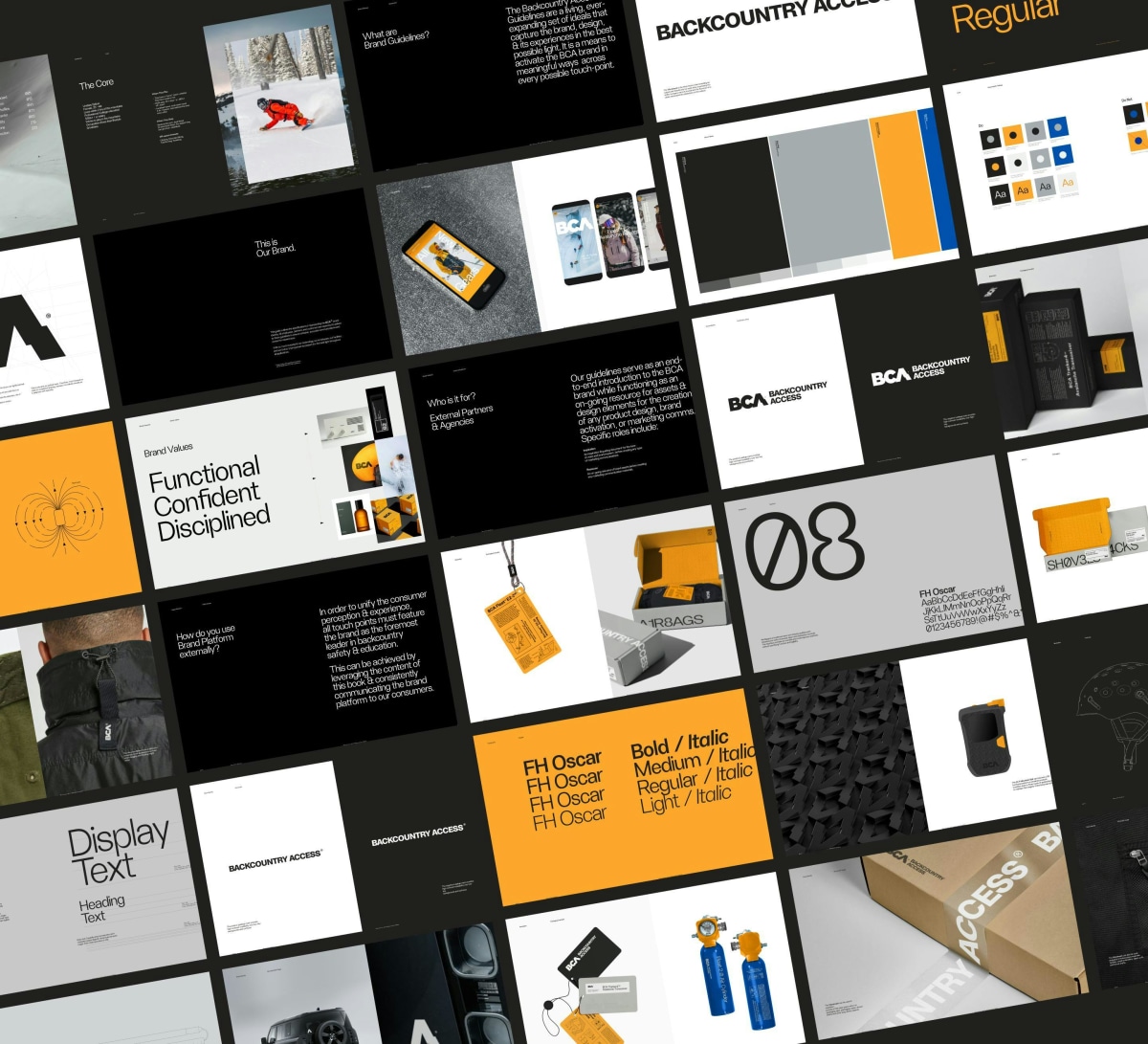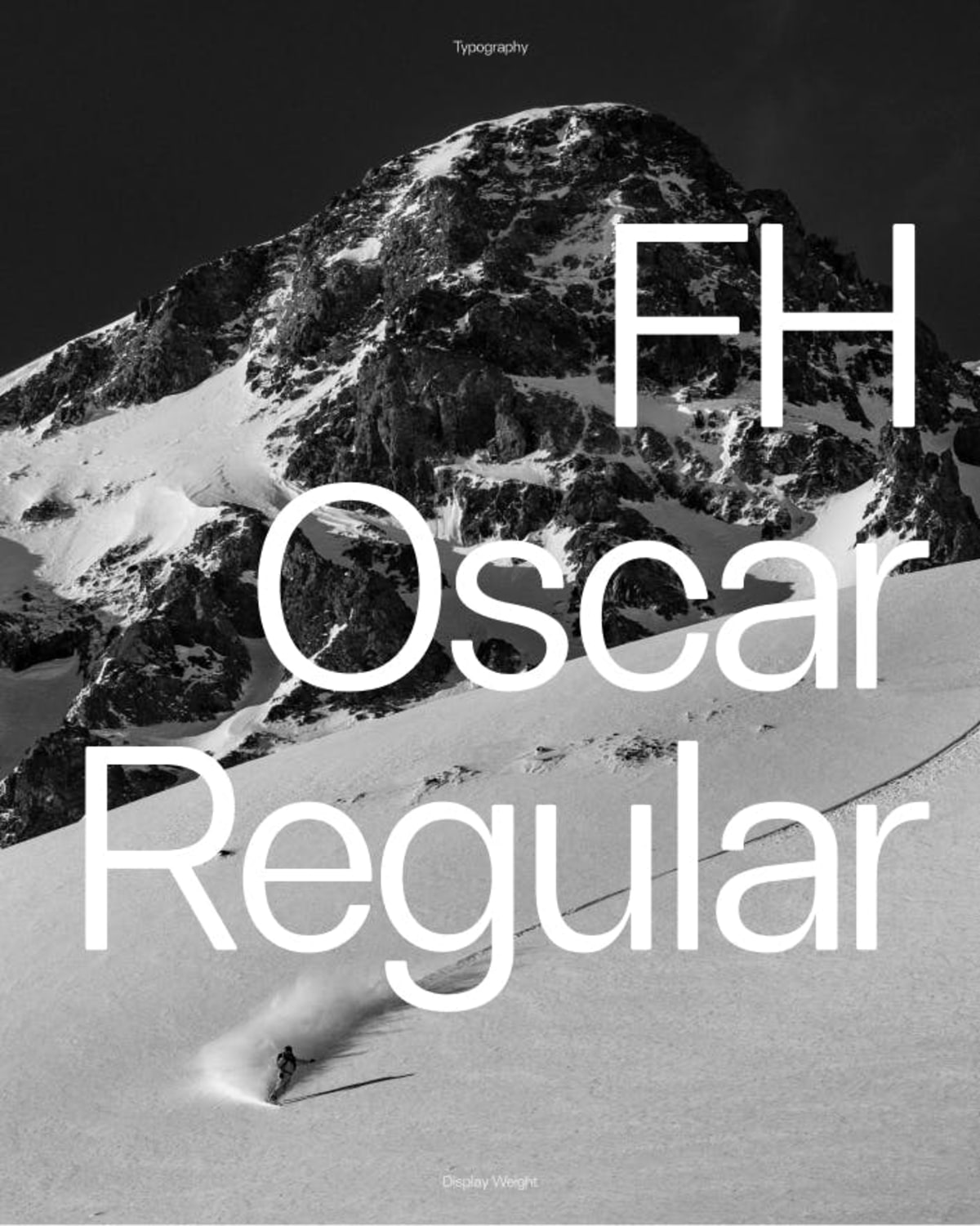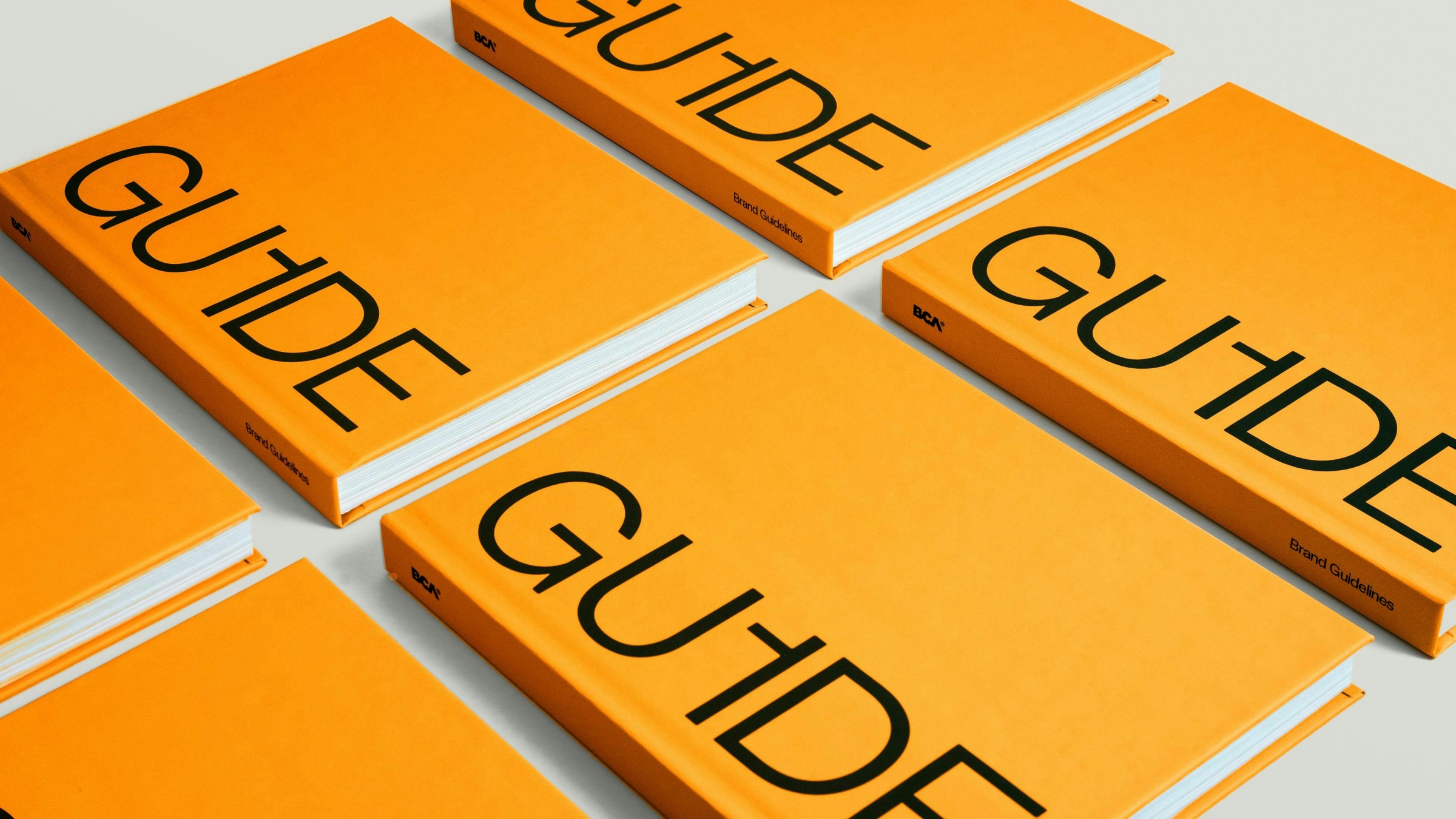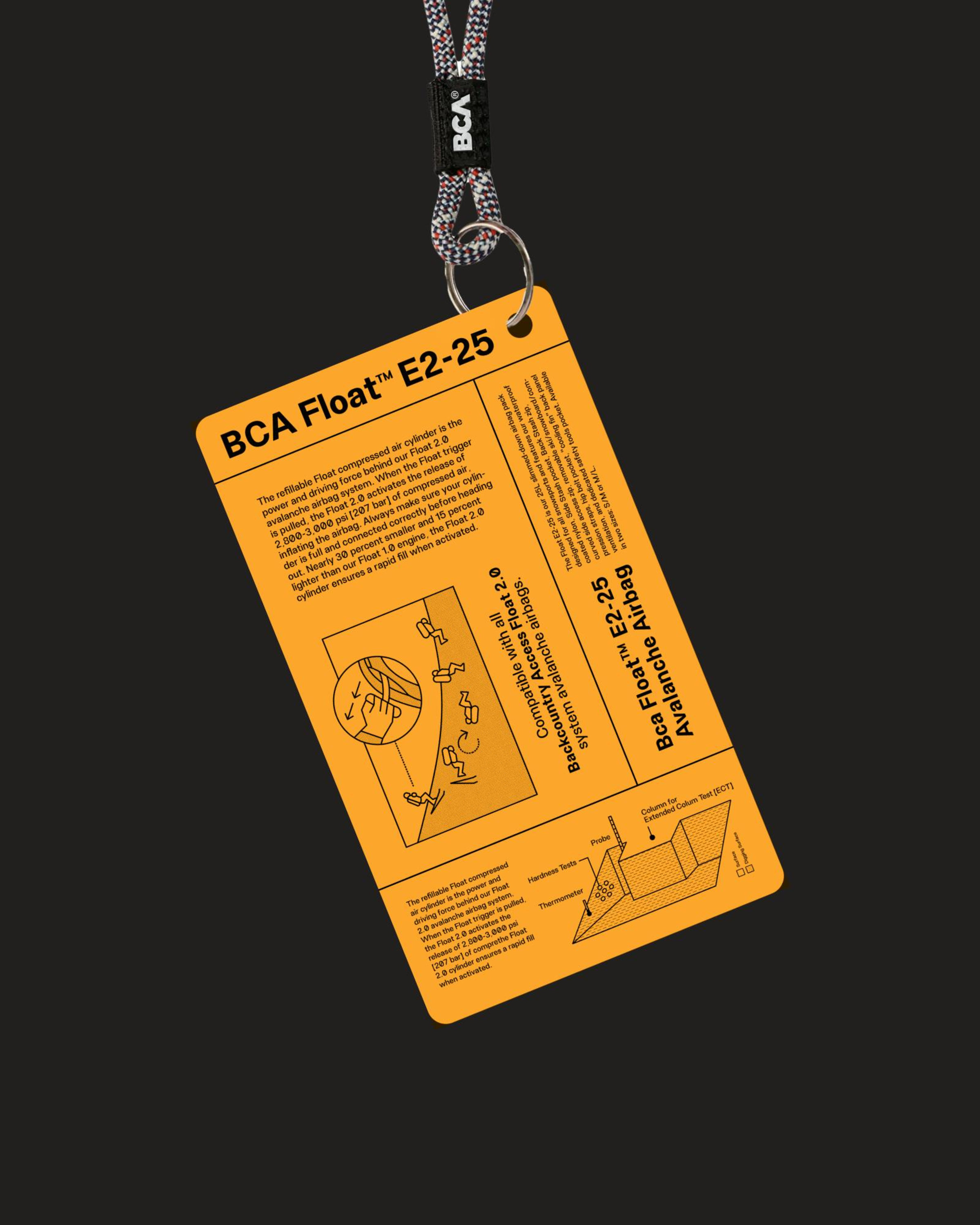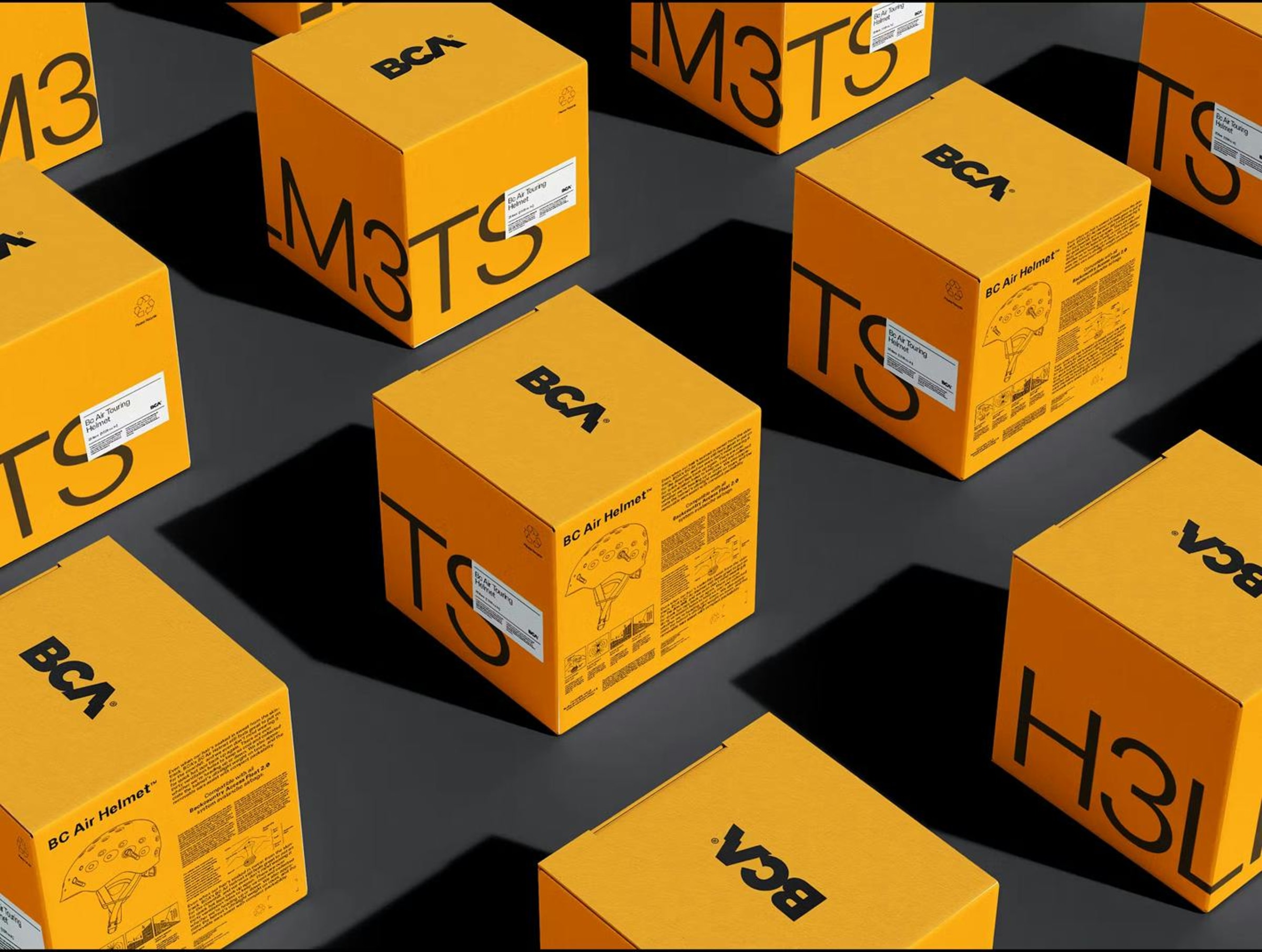
This® Studio’s rebrand for BCA effectively integrates tactical functionality within the brand identity. The MountainBolt logo, designed to evoke a tread and be physically integrated into products for improved grip, is a smart move. The custom FH Oscar implementation with binary-inspired character swaps for specific contexts directly reinforces the brand's technical heritage. This level of utility-driven design within the core identity is a strong example of how to make a logo more than just an image.